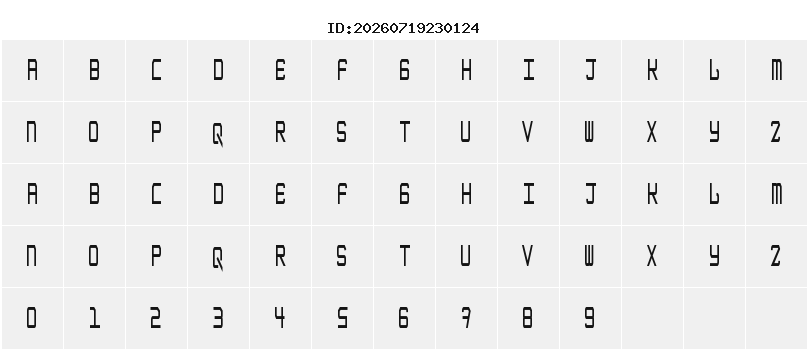
• Font Name: EpicenterBoldSkinny
• Full Font Name: EpicenterBoldSkinny
• Version: Version 1.00 July 25, 2015, initial release
• Designer: Max Infeld Xerographer Fonts
• Manufacturer: Xerographer Fonts
• Description: Made by Xerographer Fonts in Chico,California
About EpicenterBoldSkinny.ttf
EpicenterBoldSkinny.ttf is a modern, elegant sans-serif font designed for ultimate readability and visual harmony. Perfect for branding, headlines, web design, and print materials.